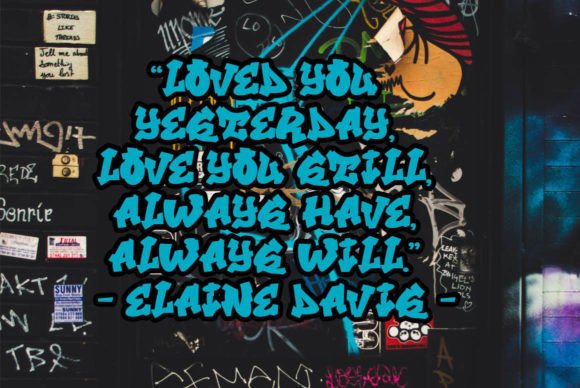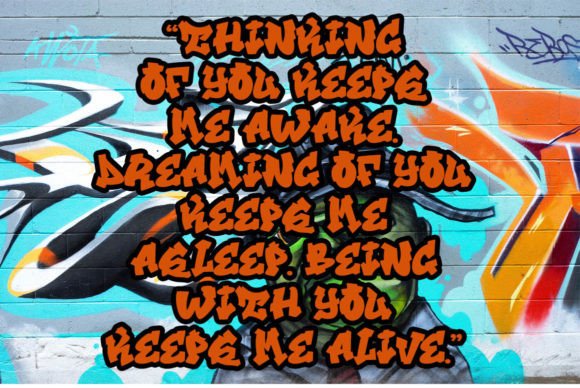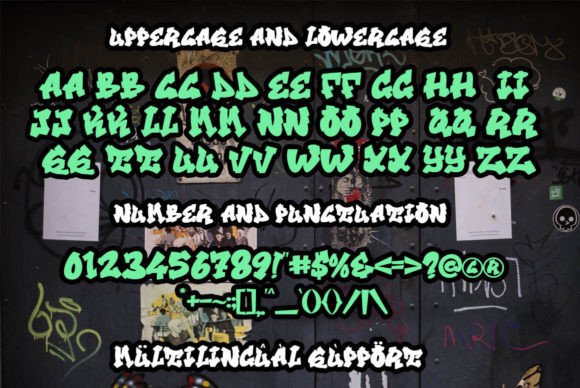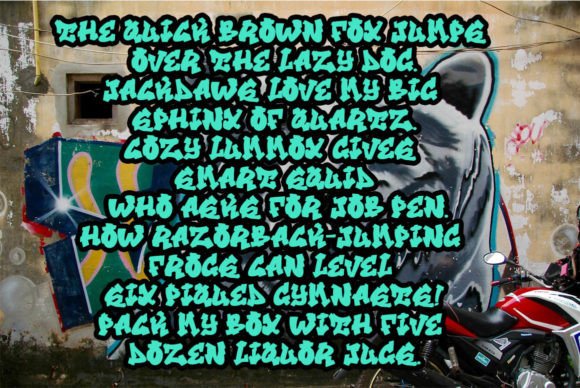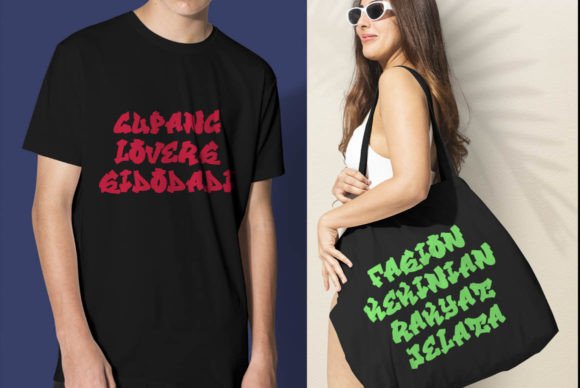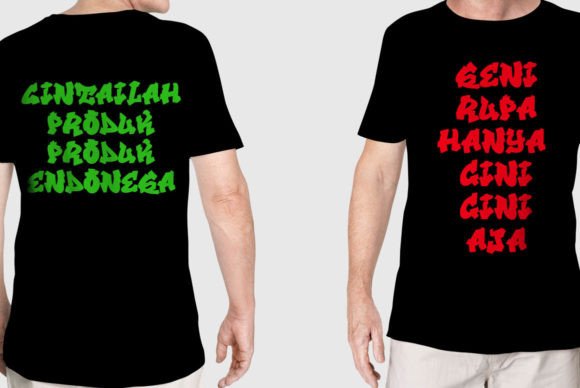
Abraham Font: The Ultimate Grafitti Display Font for Creative Designs
Are you tired of using the same old fonts for your designs? Do you want to add a touch of urban flair to your branding, logo design, or game? Look no further than the Abraham Font, a unique and fun Grafitti display font that’s perfect for making a statement. In this article, we’ll dive into the features and benefits of the Abraham Font, and explore how it can elevate your creative design ideas.
What is Abraham Font?
Abraham Font is a bold and urban-looking Grafitti display font that’s designed to make a statement. With its unique and fun style, this typeface is perfect for adding a touch of personality to your designs. Whether you’re working on a branding project, logo design, or game, the Abraham Font is sure to grab attention and leave a lasting impression.
Key Features of Abraham Font
- Unique and Fun Style: The Abraham Font boasts a one-of-a-kind Grafitti style that’s sure to set your designs apart from the crowd.
- Bold and Urban-Looking: This font is perfect for making a statement, with its bold and urban-looking design that’s sure to grab attention.
- Perfect for Branding and Logo Design: The Abraham Font is ideal for branding and logo design projects, where you want to make a lasting impression.
- Great for Games: This font is also perfect for game designers, who want to add a touch of personality to their game’s UI or marketing materials.
Benefits of Using Abraham Font
So why choose the Abraham Font for your next design project? Here are just a few benefits of using this amazing Grafitti display font:
- Adds Personality to Your Designs: The Abraham Font is a great way to add a touch of personality to your designs, and make them stand out from the crowd.
- Perfect for Creative Projects: This font is ideal for creative projects, such as branding, logo design, and game development.
- Easy to Read: Despite its bold and urban-looking design, the Abraham Font is easy to read, making it perfect for use in a variety of design applications.
- Highly Versatile: This font can be used in a variety of design applications, from print to digital media.
How to Use Abraham Font in Your Designs
Using the Abraham Font in your designs is easy. Here are a few tips to get you started:
- Pair it with Other Fonts: The Abraham Font pairs well with other fonts, such as sans-serif fonts, to create a unique and interesting design.
- Use it for Headings: This font is perfect for use in headings, where you want to make a statement and grab attention.
- Experiment with Colors: The Abraham Font looks great in a variety of colors, so don’t be afraid to experiment and find the perfect color scheme for your design.
In conclusion, the Abraham Font is a unique and fun Grafitti display font that’s perfect for adding a touch of urban flair to your designs. With its bold and urban-looking design, this font is ideal for branding, logo design, and game development projects. Whether you’re a designer or crafter, the Abraham Font is a great addition to your font library. So why wait? Download the Abraham Font today and start creating amazing designs that make a statement!